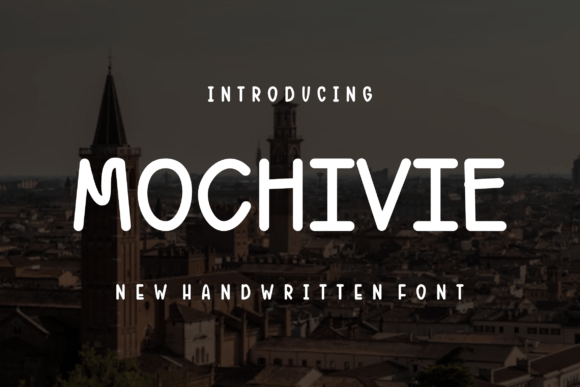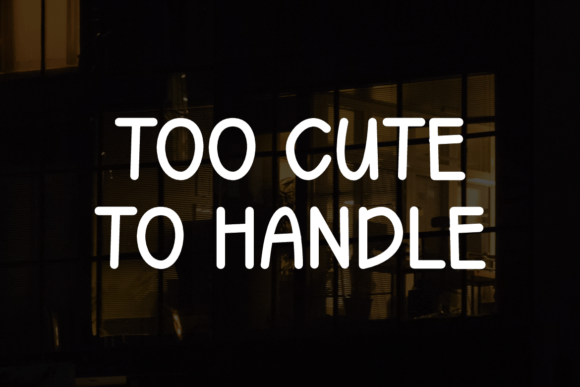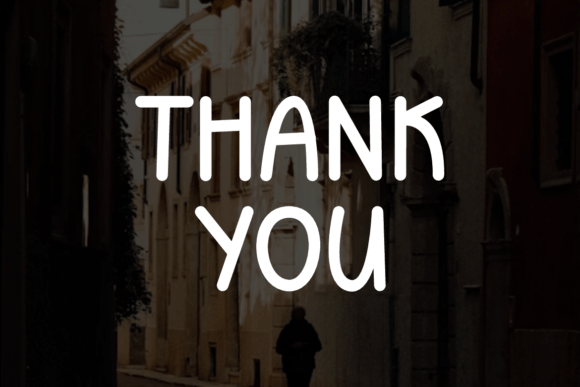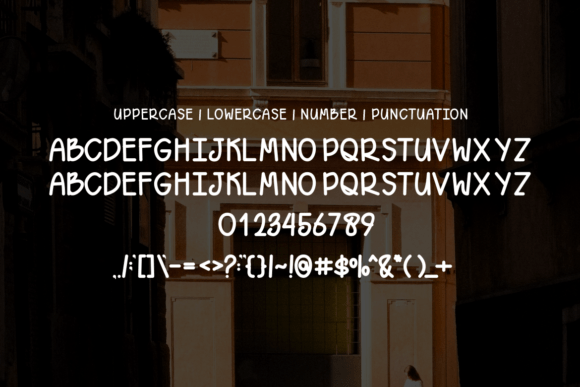
Mochivie Font: A Cute Handwritten Font for Cricut & Playful Designs!
About the Mochivie Font
Explore the possibilities with Mochivie Font, a font that offers both beauty and functionality. Mochivie is a sweet and friendly handwritten font. It is perfect for any branding project such as logos, t-shirt printing, creative products, and more. extraordinary in a variety of contexts.
Mochivie’s friendly, handwritten style shines in logos, short headlines, and packaging designs where its approachable nature adds warmth. It works exceptionally well for branding projects targeting younger demographics or businesses emphasizing a handmade, artisanal feel. However, its informality makes it unsuitable for body text or lengthy paragraphs; readability suffers at smaller sizes.
For optimal visual balance, pair Mochivie with a clean sans-serif like Open Sans for a contemporary feel, or a classic serif such as Garamond for a touch of elegance. A geometric sans-serif could also provide a nice contrast, offering structure to Mochivie’s casual script.
Mochivie projects a playful, approachable personality, best suited for brands focused on creativity, community, or handcrafted goods. Avoid using it for projects requiring a formal or serious tone.